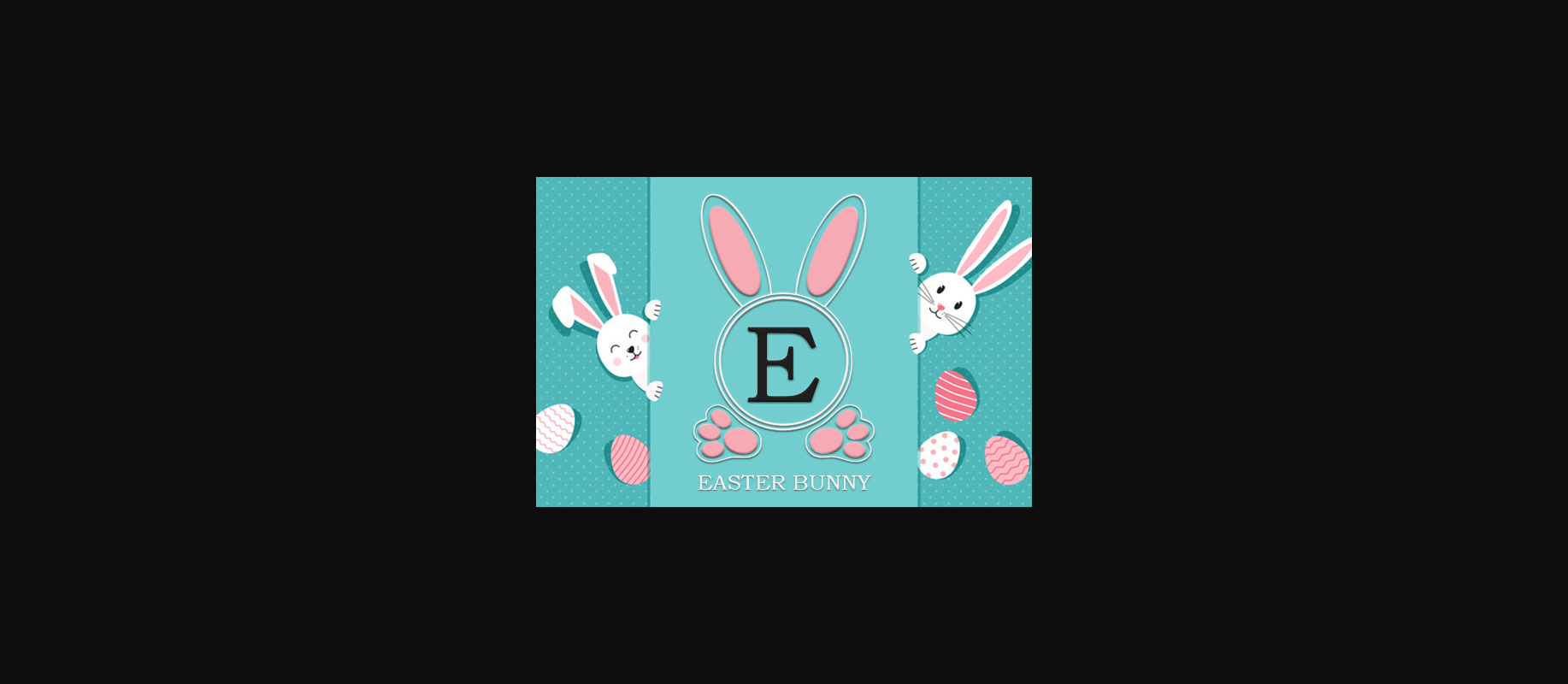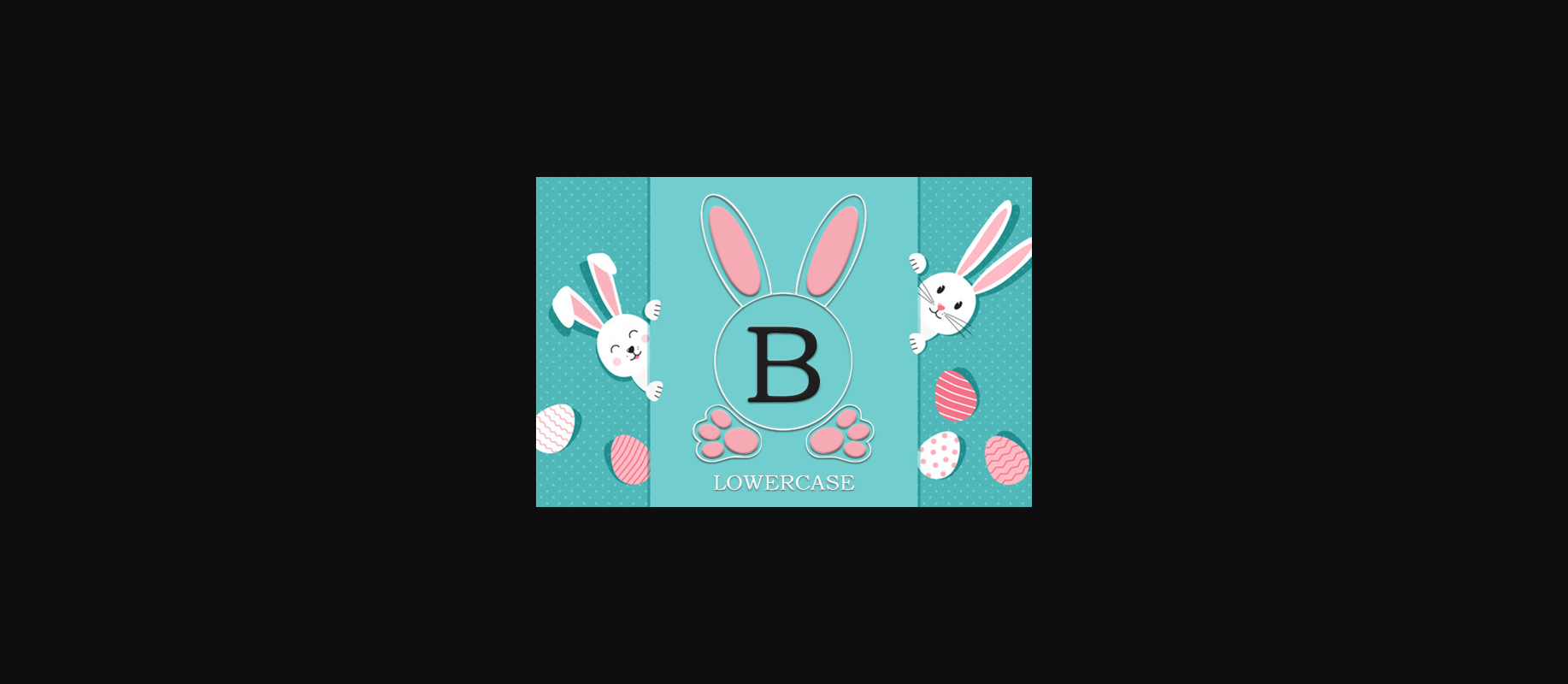
Easter Bunny is a cool and uniquely crafted decorative font. Its fun and playful characters make it the perfect font for stickers, mugs, t-shirts, ornaments, Easter’s Day cards, event invitations, and many more!